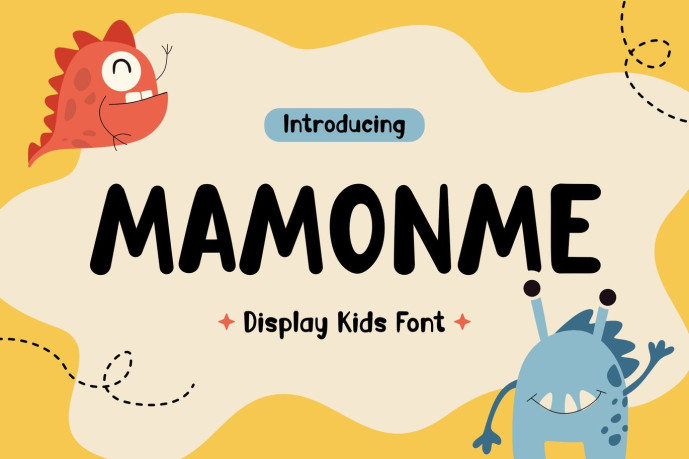
Mamonme – Storybook Kids Font
Mamonme is a storybook kids display font designed for children’s books, educational materials, classroom activities, and playful branding that needs a cheerful and imaginative personality. Featuring rounded letterforms, soft curves, bouncy proportions, and a friendly handwritten style, Mamonme brings every word to life with a sense of fun and adventure.
Inspired by magical storybooks and lovable cartoon monsters, this expressive display font creates an inviting reading experience that feels warm, approachable, and full of creativity. Its playful structure helps capture children’s attention while maintaining excellent readability, making it ideal for both print and digital projects. Whether you’re designing a picture book, activity workbook, toy packaging, learning app, or kids-focused social media content, Mamonme adds a joyful character that instantly sparks imagination.
Children are naturally drawn to visuals that feel friendly, colorful, and full of personality. Mamonme helps authors, illustrators, educators, and designers create memorable experiences through typography that encourages curiosity and storytelling.
Perfect for kids books, educational branding, classroom posters, activity sheets, toy packaging, learning apps, and children’s events, Mamonme transforms ordinary text into playful adventures. Its approachable appearance helps young readers feel engaged while supporting creative projects that are both entertaining and educational. For publishers, teachers, toy brands, and content creators, Mamonme provides the charming visual voice needed to make every story feel more magical.